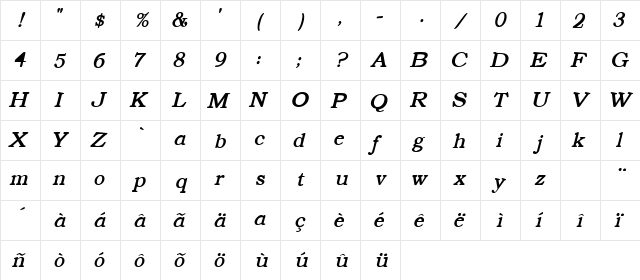
Text Serif Italic HPLHS
Design Context for Text Serif Italic Typeface
Text Serif Italic carries the refined structure of traditional serif typography, with bracketed terminals and considered proportions that communicate credibility and craft. The slanted form adds forward momentum and visual energy.
Pro Tip: Set Text Serif Italic with slightly loose tracking in headlines to let each letterform's detail read clearly at display sizes.